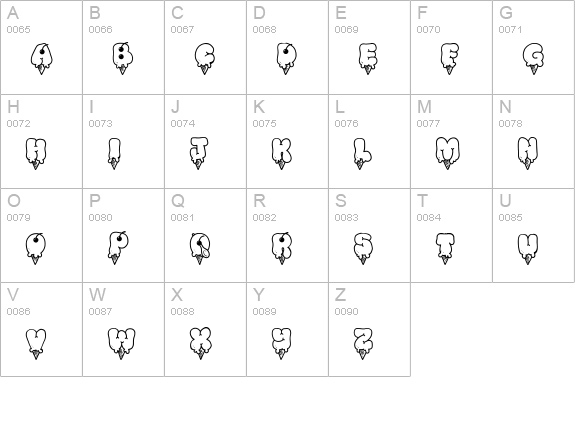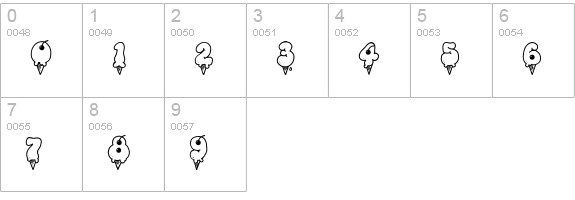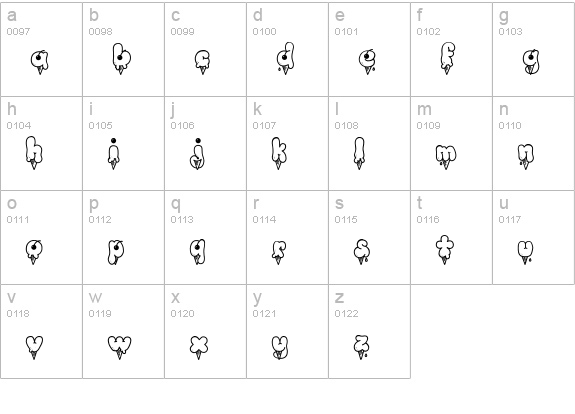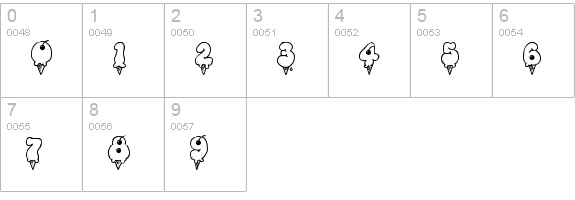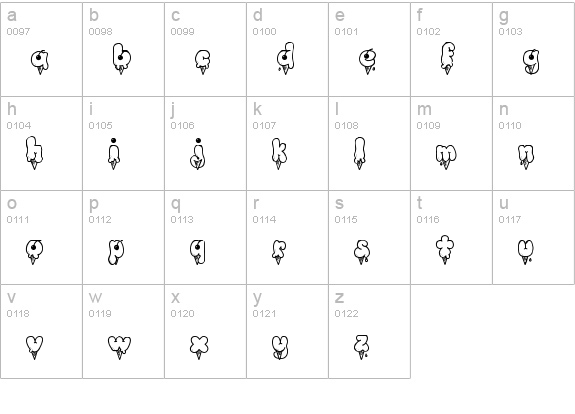
CK Ice Cream Cone Font Details
Introducing CK Ice Cream Cone font, a whimsical and playful typeface that will add a touch of sweetness to your designs. Inspired by the joy of indulging in a delicious ice cream cone on a sunny day, this font features charming swirls and curves reminiscent of melting ice cream. CK Ice Cream Cone font is perfect for creating eye-catching headlines, greeting cards, invitations, and more. Its unique design will bring a sense of fun and lightheartedness to any project. Best of all, CK Ice Cream Cone font is available for free download at FontsMarket.com. Don't miss out on adding this delightful font to your collection and let your creativity soar with its deliciously unique style.